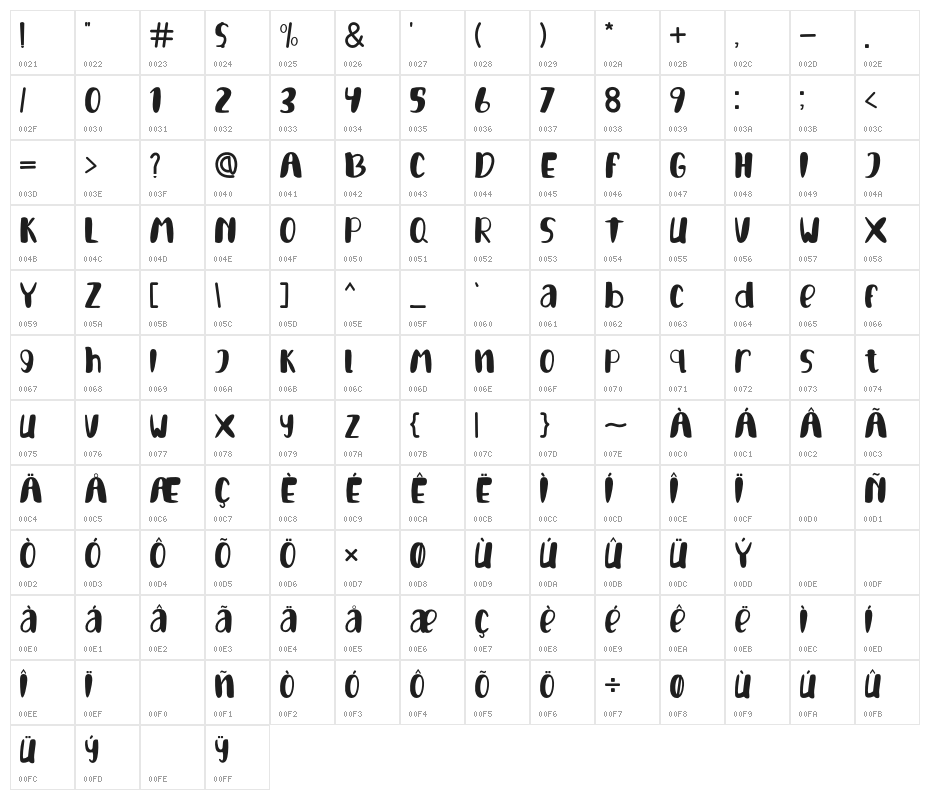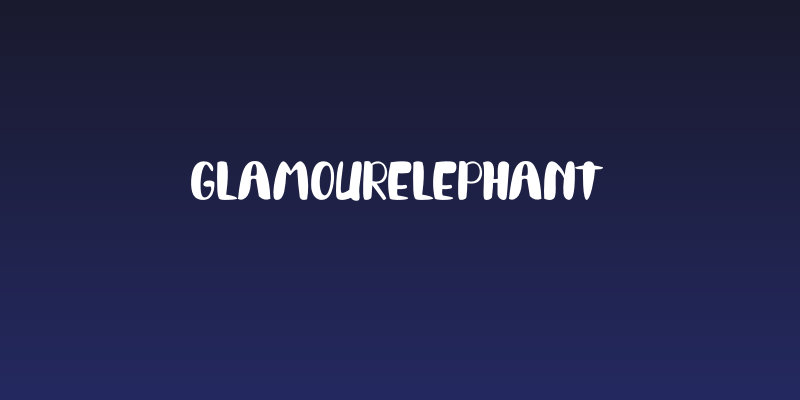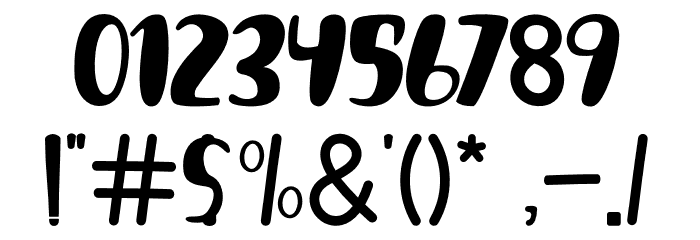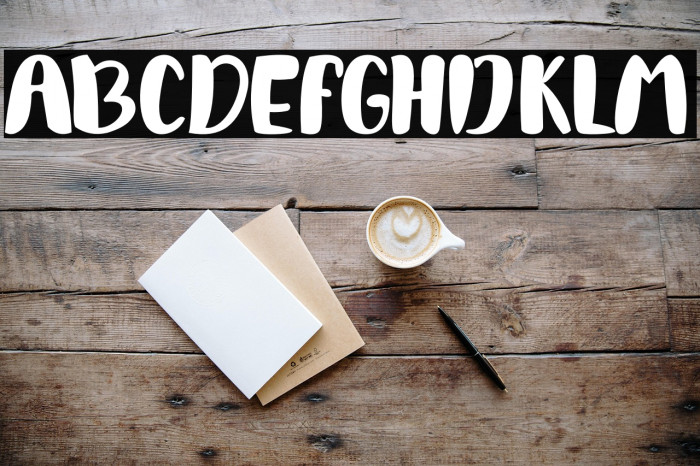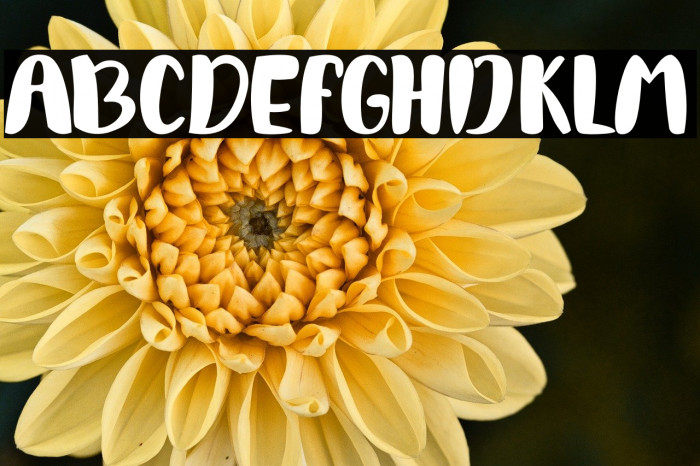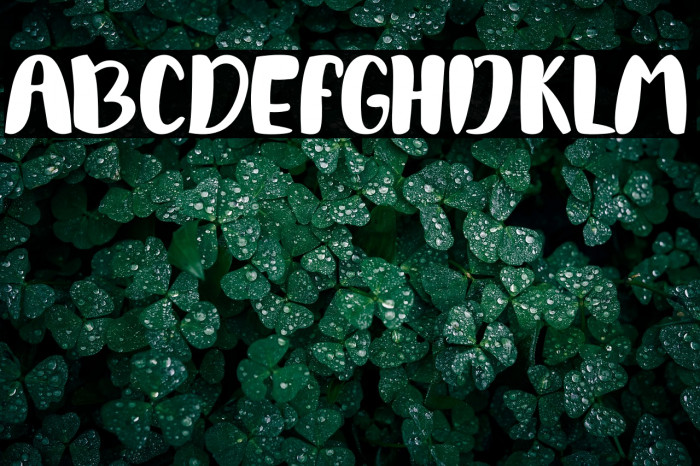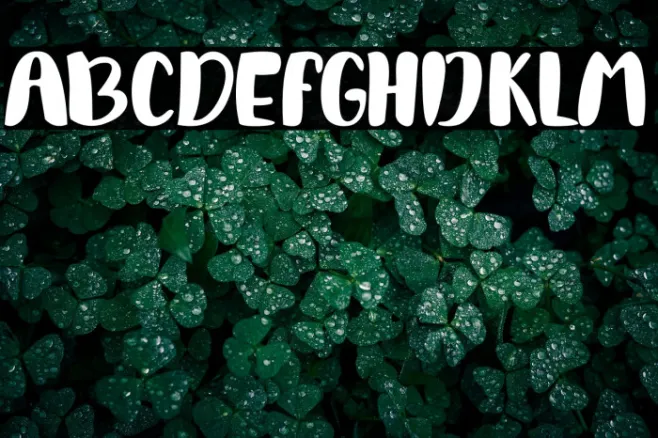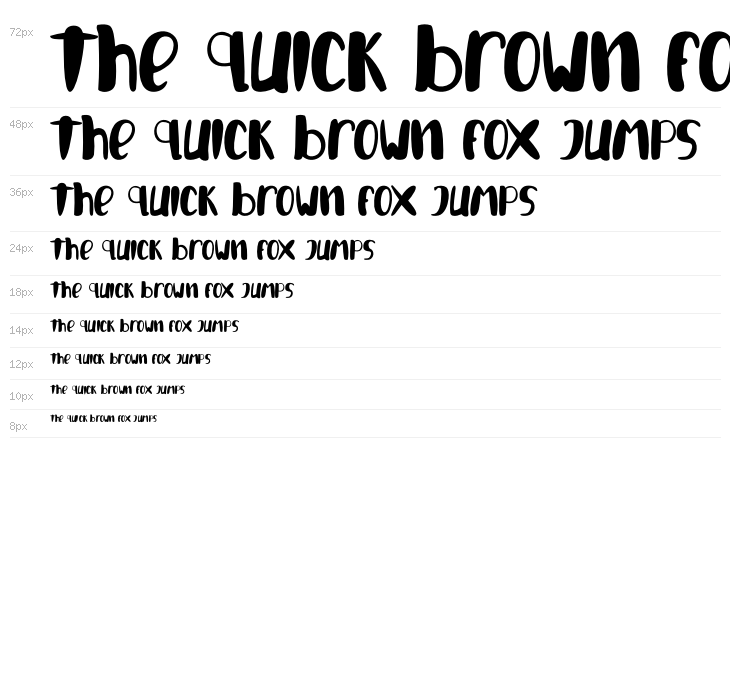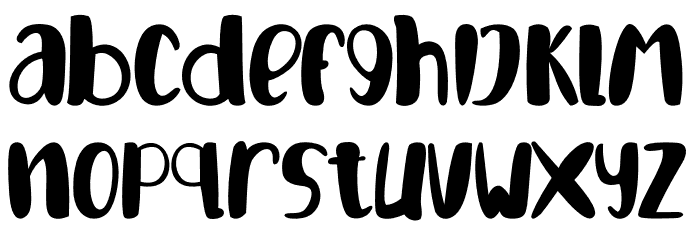
GlamourElephant Font
GlamourElephant Description
This font features a bold and playful design with a strong presence. The characters have a rounded, smooth appearance, giving them a friendly and approachable feel. The strokes are thick and consistent, providing a sense of stability and confidence. The uppercase and lowercase letters maintain a cohesive style, with slight variations that add character and uniqueness. The numbers are equally bold and maintain the playful aesthetic, making them easily readable. Special characters are included, matching the overall style and ensuring versatility in usage.
| Overall Style | Playful, Modern |
| Proposed Projects | Ideal for children's books, playful branding, posters, and creative projects that require a fun and engaging typeface. |